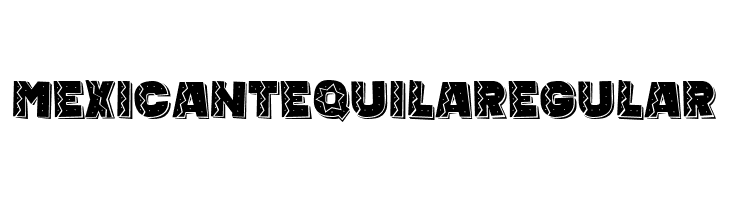
A bold, decorative font with a festive and playful style.
设计师偏爱 Nafeeda, Sketchy Twisty Demo Reguler, FDBateek, Beliday and Mexican Tequila Regular,因为其造型干净、适用范围广—— 从品牌识别到落地页、海报都能胜任。